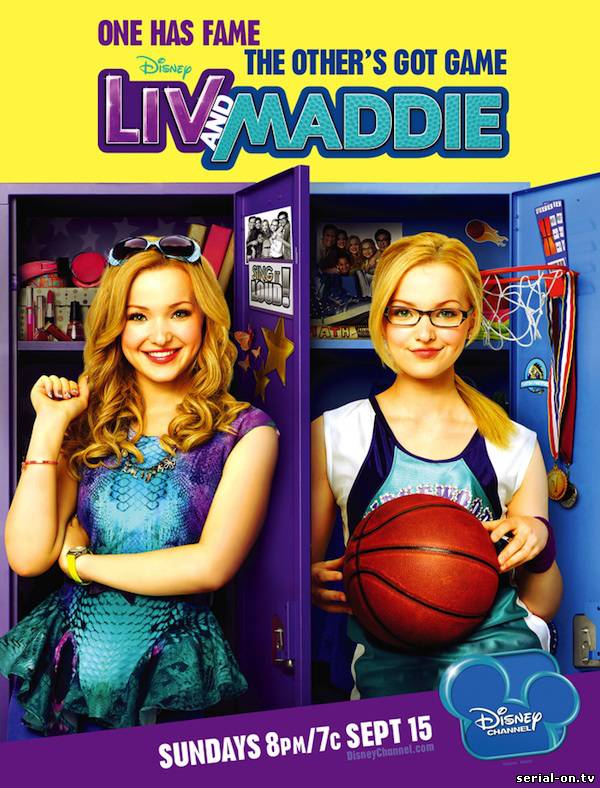
Liv and Maddie (TV Show) Font
FamilyLiv and Maddie is a Disney Channel original series that follows the lives of identical twin sisters with vastly different personalities, Liv, a Hollywood star, and Maddie, a basketball player, as they navigate high school and family life.